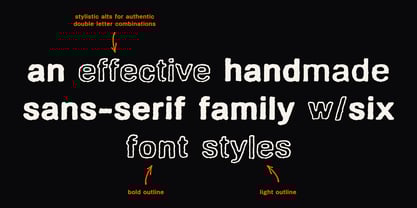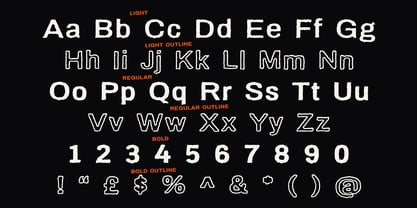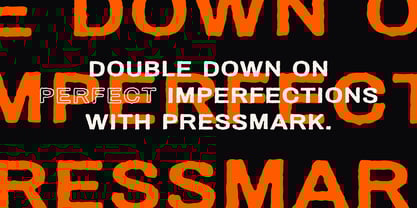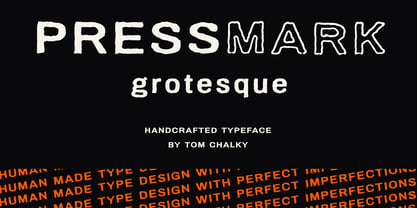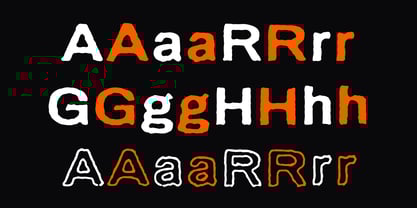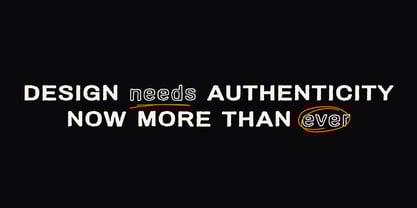
TC Pressmark
by Tom Chalky
A Handcrafted Sans-Serif Family Built with Character
Say hello to Pressmark Grotesque - A punchy handmade type family that doubles down on authenticity. Designed to echo the tactile quirks of traditional print, Pressmark struts confidently between raw expression and graphic clarity.
Each glyph carries a subtle wobble as if it’s been stamped rather than drawn. That perfect imperfection? It's intentional! We need it now more than ever.
With six distinct styles; Solid and outlined versions across light, regular, and bold weights - this family adapts effortlessly between playful and serious design needs.
Whether crafting headlines, branding, or layering up gritty type-driven posters, Pressmark’s alternate glyphs and double-letter alternates add natural variation without the fuss.
Highlights:
• Six styles: Light, Regular, Bold + matching Outline versions
• Stylistic alternates for authentic double letters
• Handmade textures with print-inspired quirks
• Built for branding, editorial, posters, merch, and beyond